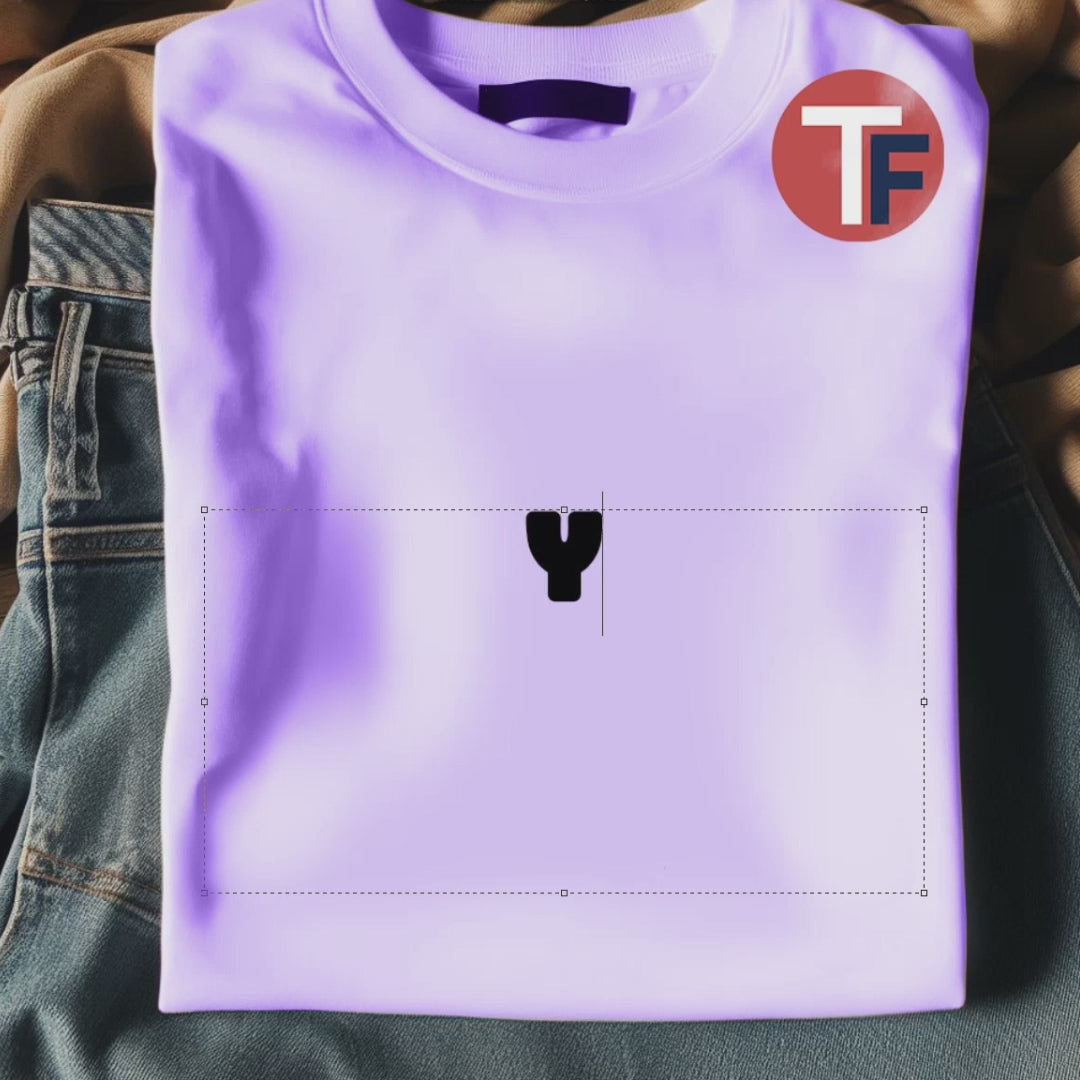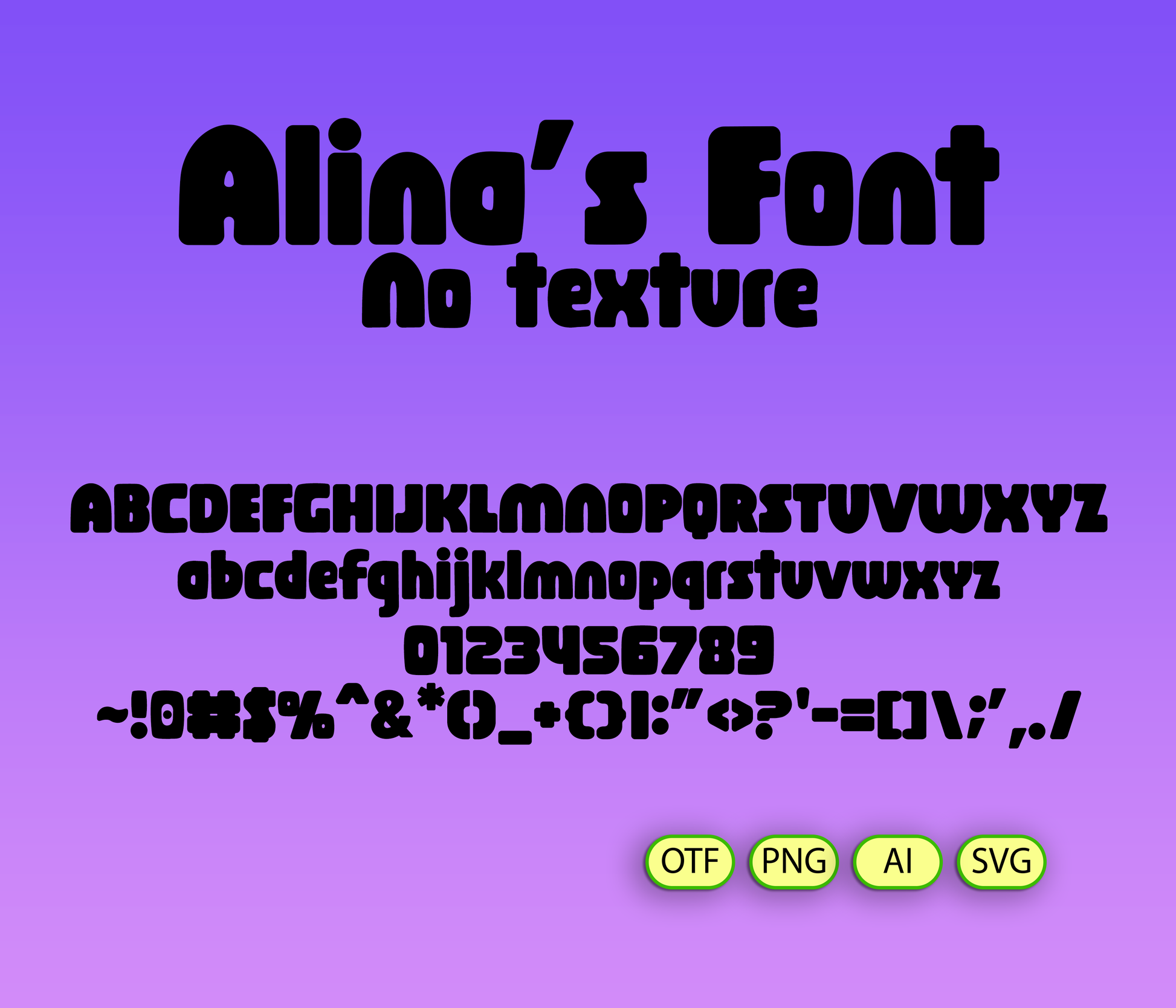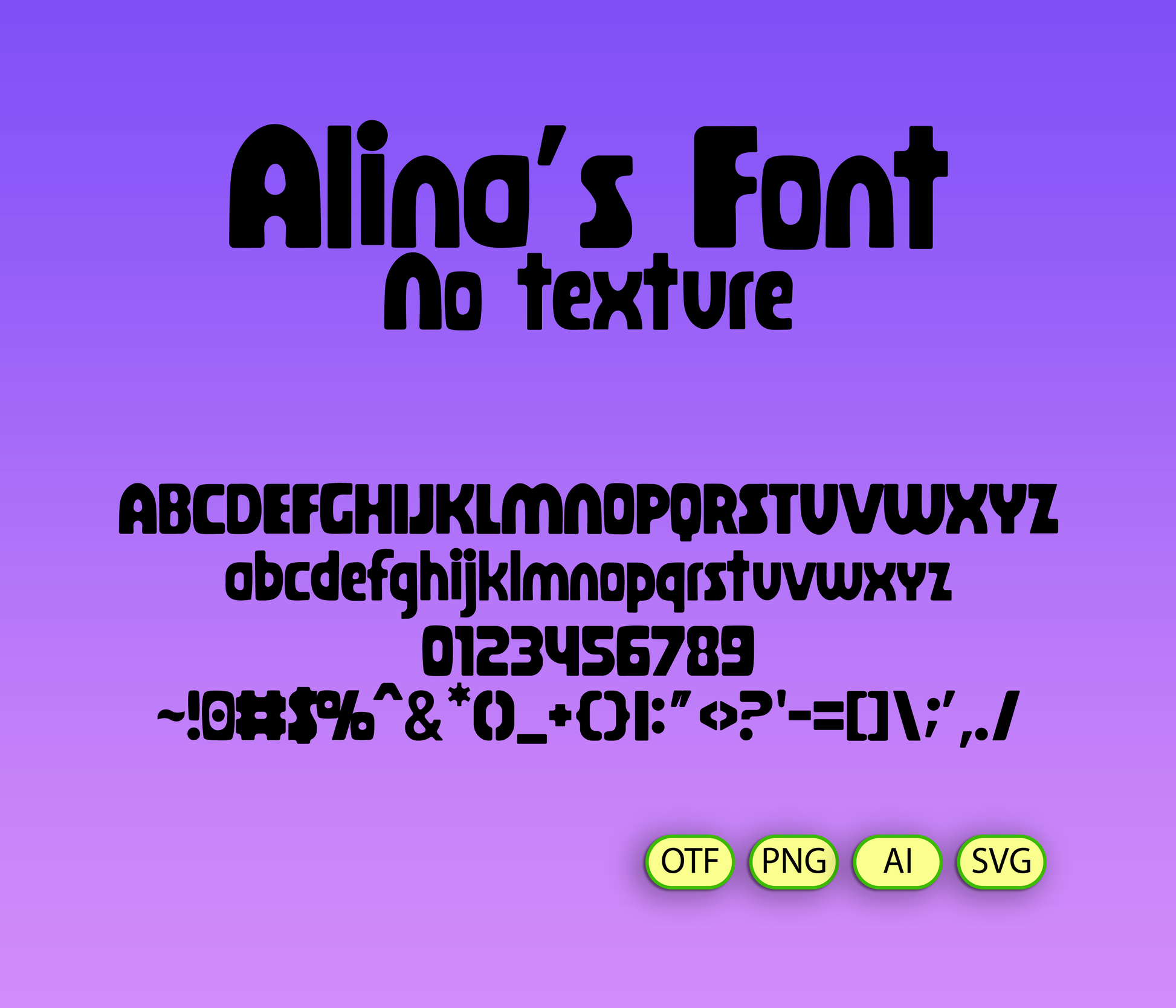
Fun Time Font Bundle
Embrace the Enjoyment with the Fun Time Font
Step into the vibrant and spirited world of Fun-Time with our specially designed font. Perfect for fans, event organizers, and designers seeking to capture the playful and competitive essence of the animated series, this font brings the energetic and colorful vibe of the show to your projects. Whether you're creating event invitations, designing themed merchandise, or crafting digital content, our Fun-Time font ensures your creations resonate with the lively and dynamic spirit of the beloved series.
Our Fun-Time-inspired font features bold, dynamic lines and playful, rounded characters that reflect the fun and competitive nature of the show. This versatile font is ideal for a variety of applications:
- Event Invitations: Perfect for creating engaging invites for sports events, parties, or themed gatherings.
- Merchandise Design: Ideal for designing t-shirts, posters, and accessories that capture the essence of Fun-Time.
- Digital Media: Enhance websites, blogs, and social media content with eye-catching headers and graphics.
- Educational Materials: Use in presentations, worksheets, and educational content focused on teamwork, competition, or storytelling.
- Personal Projects: Add a fun touch to scrapbooking, DIY crafts, or home decor inspired by the adventures and rivalries in Fun-Time.
Our Fun-Time font not only pays tribute to the energetic series but also empowers you to infuse your designs with its lively and competitive spirit. Whether you’re crafting promotional materials, designing unique merchandise, or adding a dynamic touch to personal projects, this font allows you to communicate with the fun and excitement that define Fun-Time. Ready to bring a burst of magic and competition to your creative endeavors? This font is your key to unlocking a world of playful and engaging design.